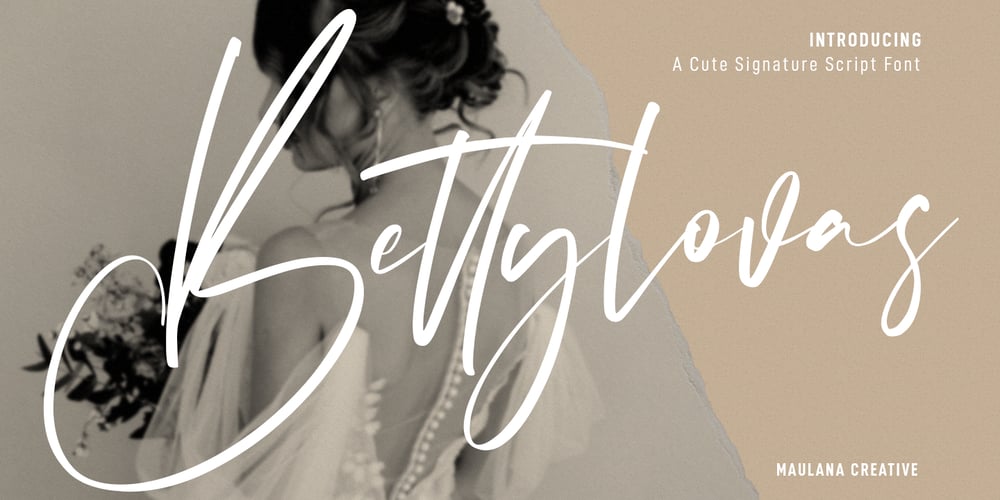
Bettylovas Font Family was designed by Gilang Maulana and published by Maulana Creative. Bettylovas contains 1 styles and family package options. Bettylovas is a cute beauty feminine script font. With high contrast stroke, fun character with a bit of ligatures and alternates. To give you an extra creative work. Bettylovas font support multilingual more than 100+ language. This font is good for logo design, Social media, Movie Titles, Books Titles, a short text even a long text letter and good for your secondary text font with sans or serif. Make a stunning work with Bettylovas font. Cheers, MaulanaCreative